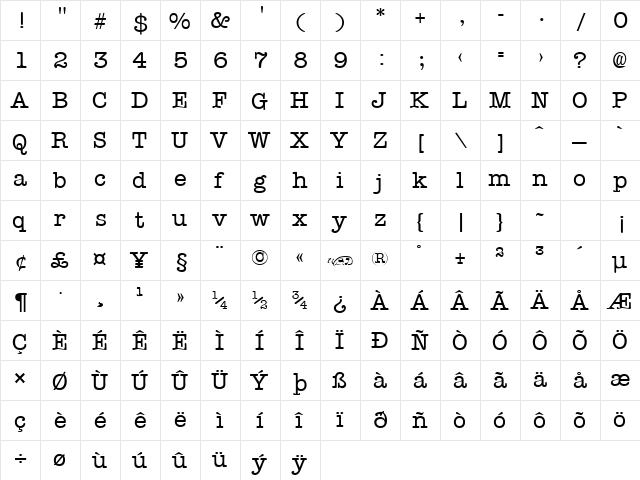
Typist normal Font Preview
Typist normal
Design Context for Typist Typeface
Typist takes a measured approach to typography — its balanced proportions and neutral character make it a reliable workhorse for both digital and print work.